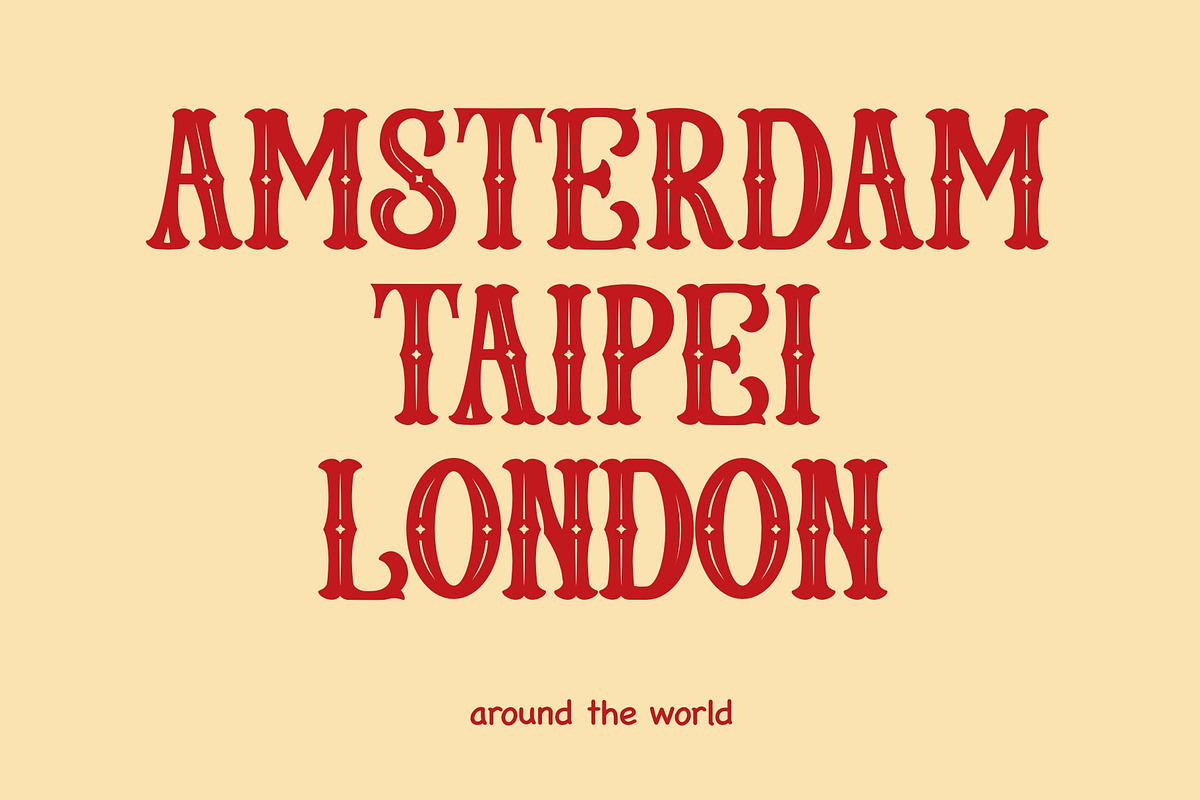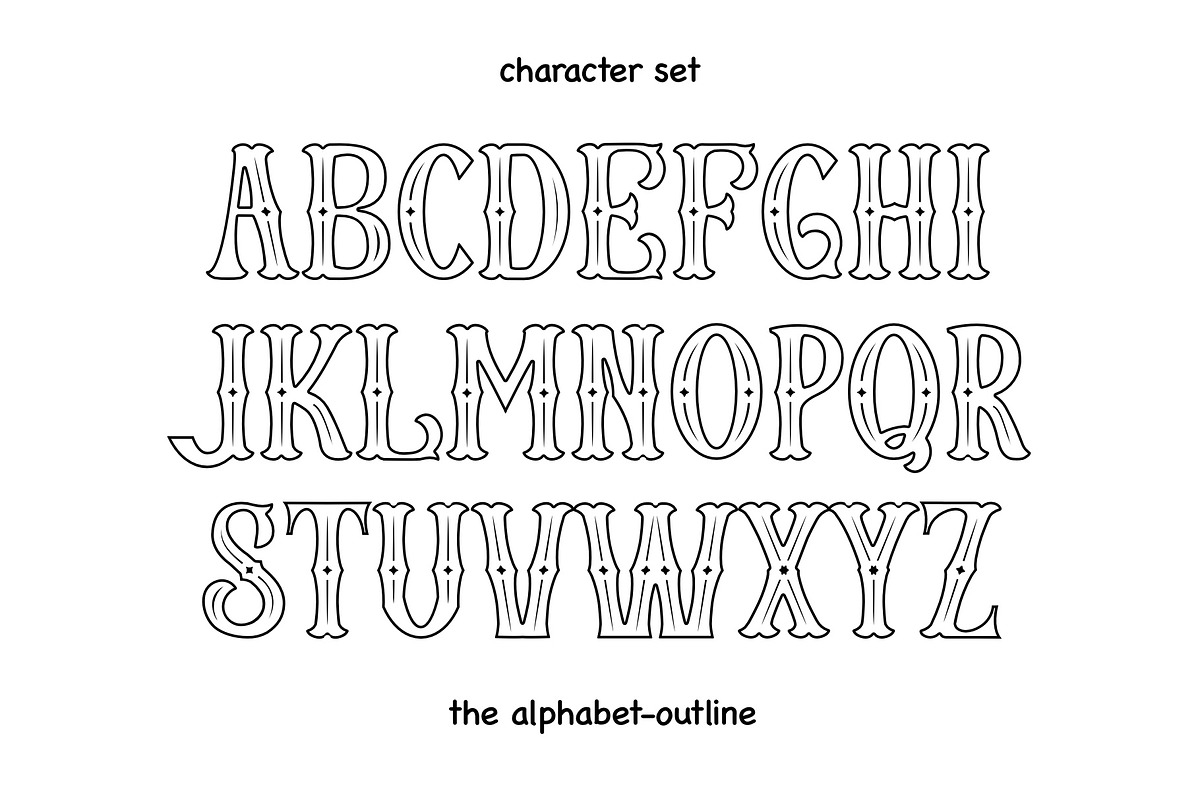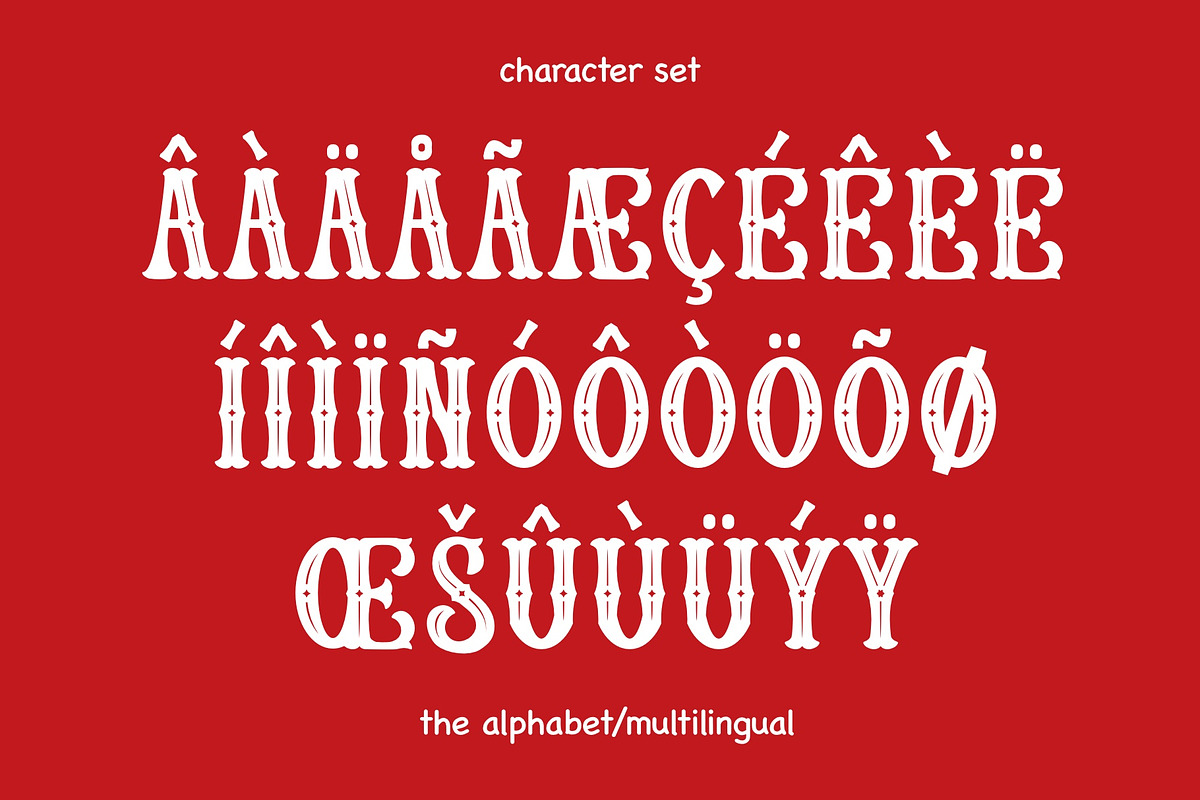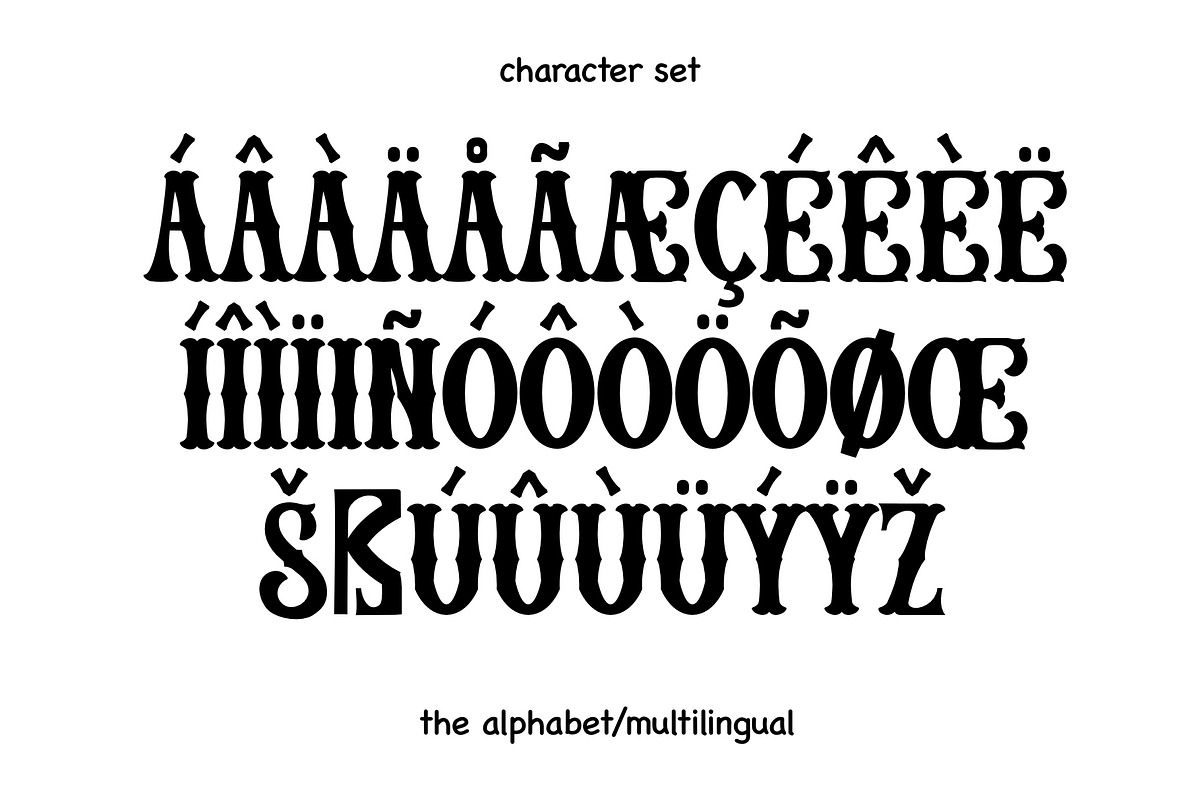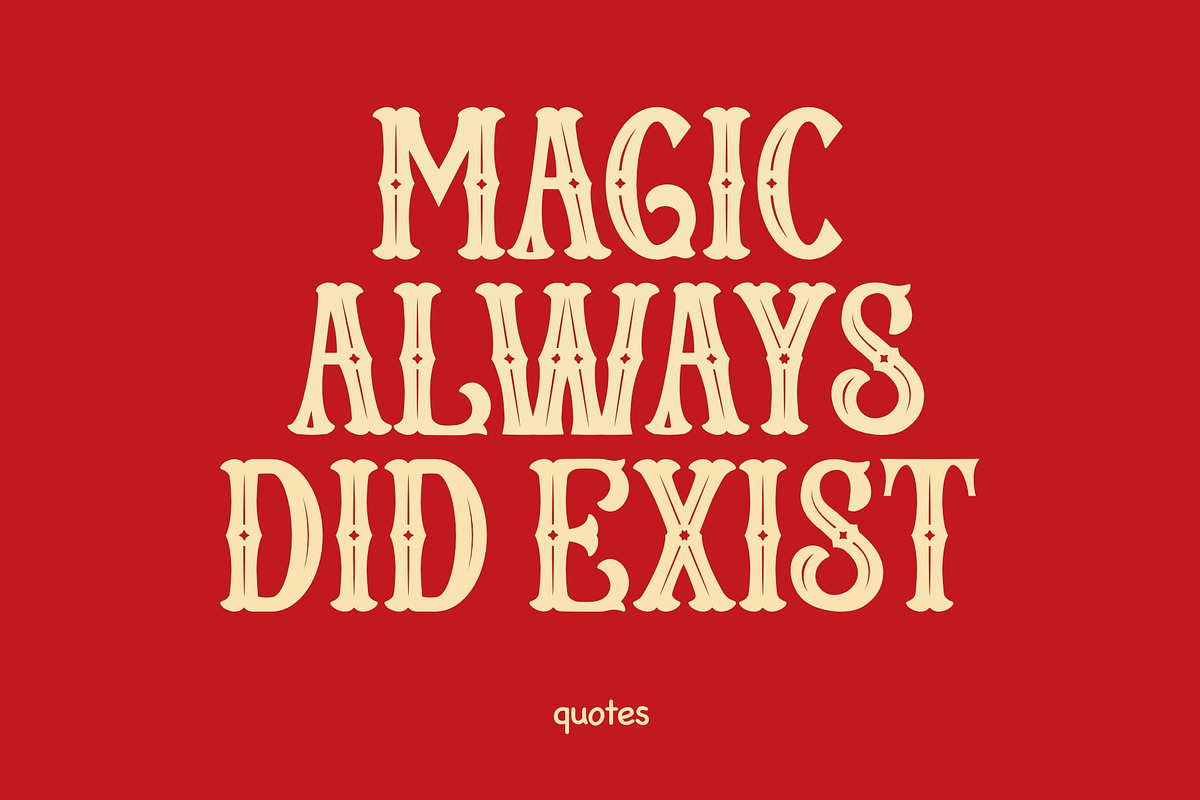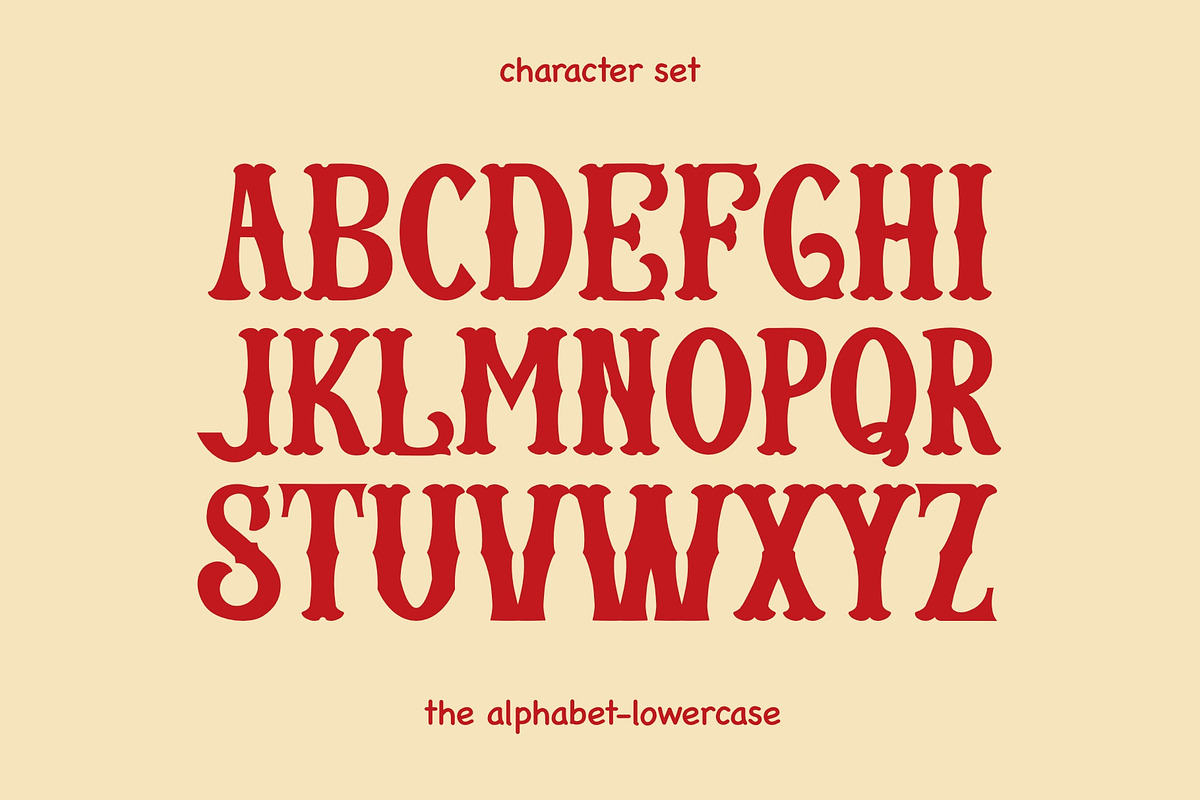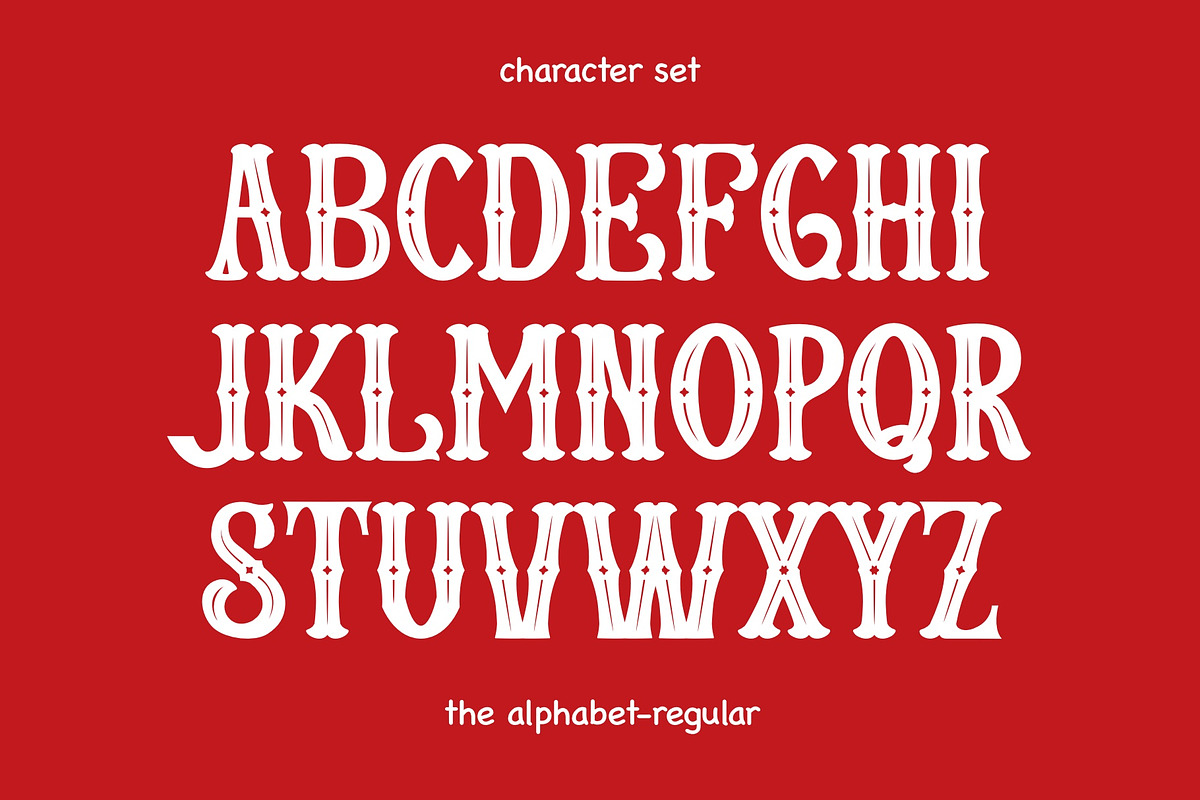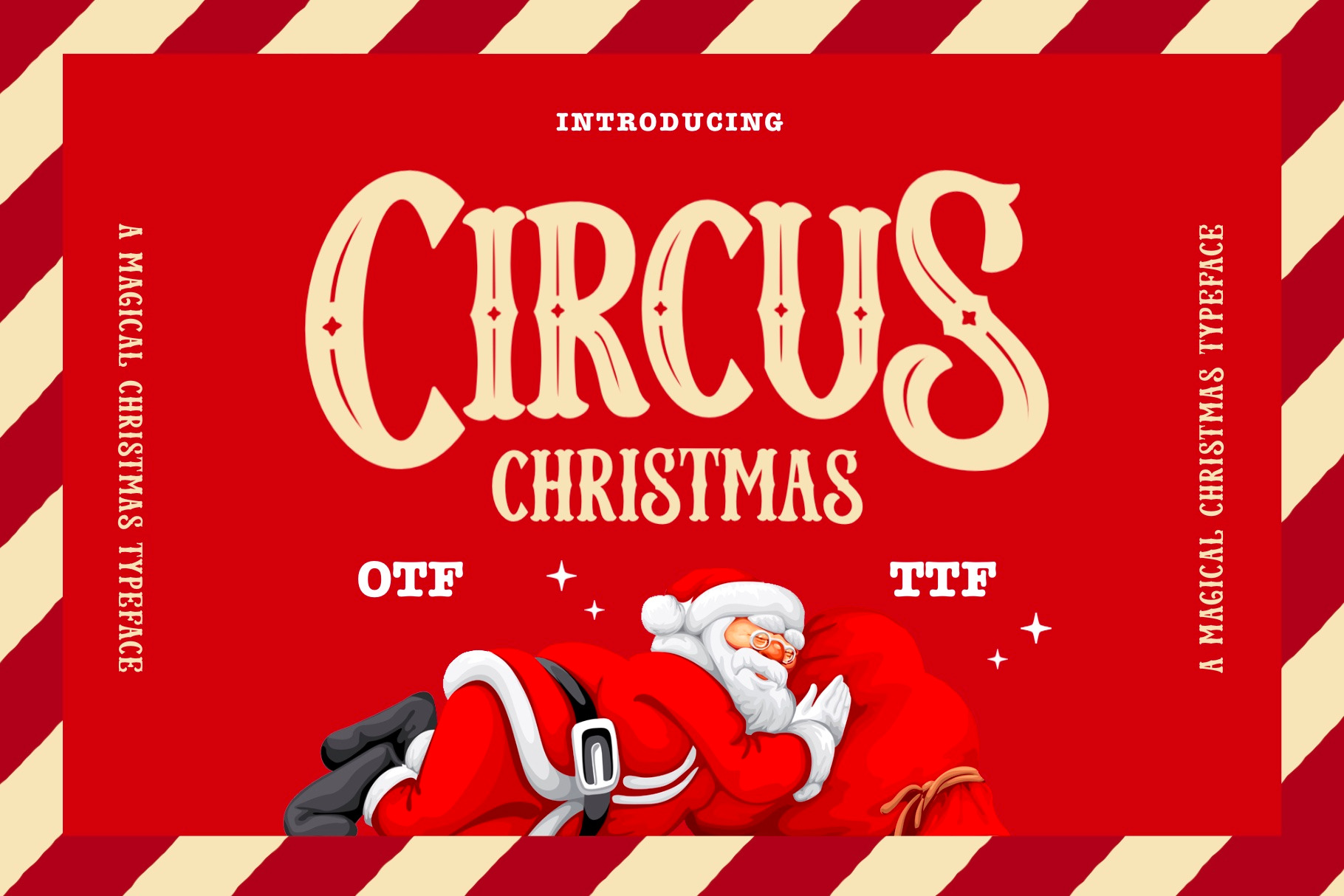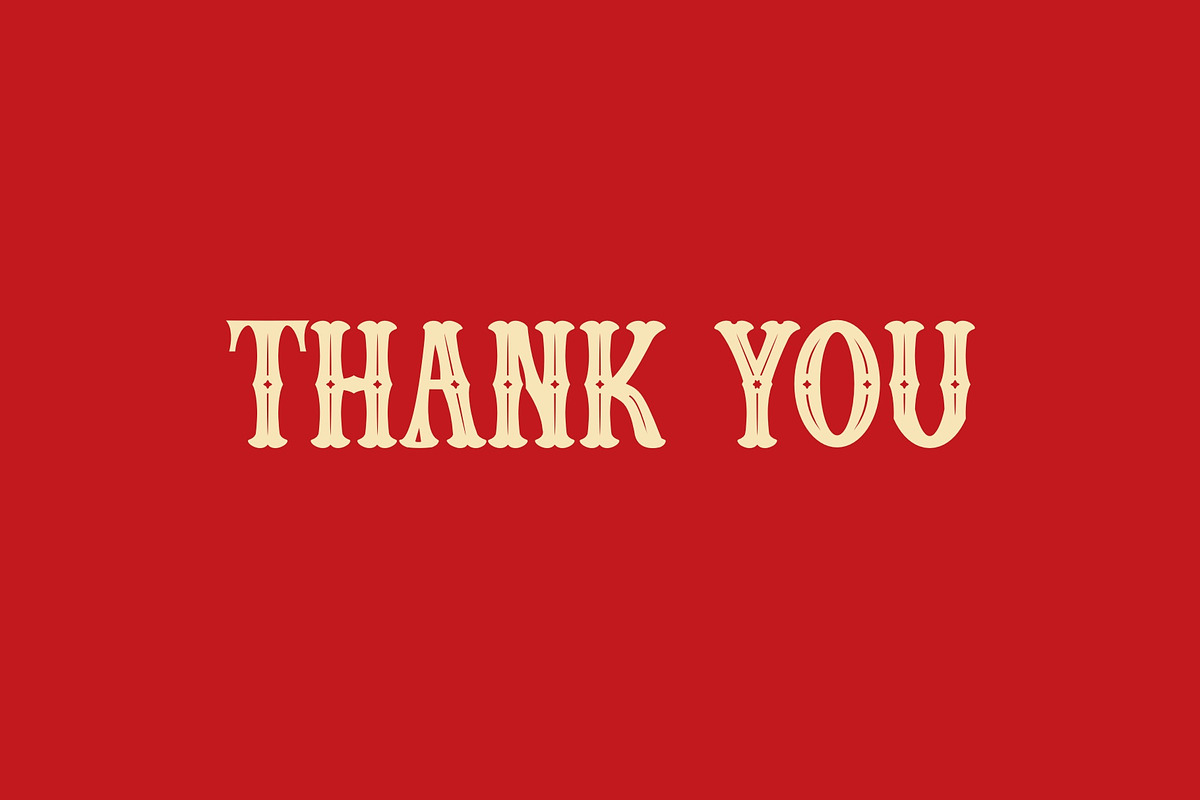
Circus Christmas Font - Fancy Font
"Circus Christmas" font is a whimsical and festive typeface designed to infuse holiday spirit into your projects. This typeface available in SVG format, compatible with advanced tools such as Cricut and Glowforge, and for use in Procreate. This font is also included in Accent or Multilingual Font. With playful curves and charming letterforms, this font captures the joyful essence of the Christmas season. "Circus Christmas" font brings a lively and celebratory flair to spread cheer and warmth, whether used for holiday cards, party invitations, or seasonal promotions.